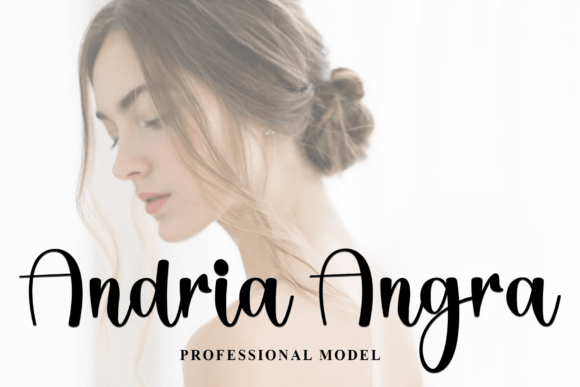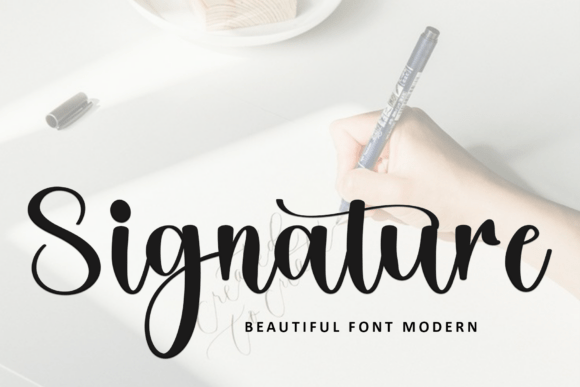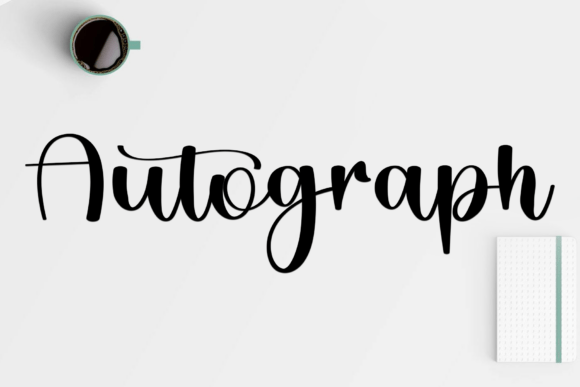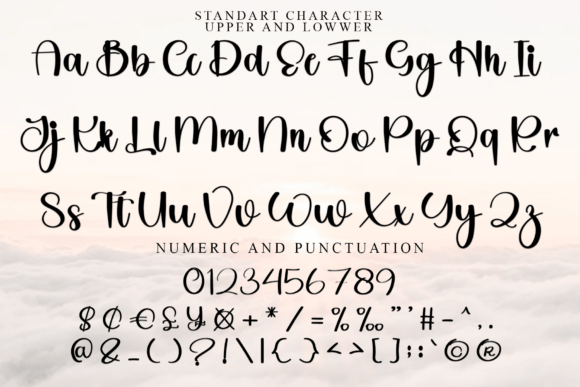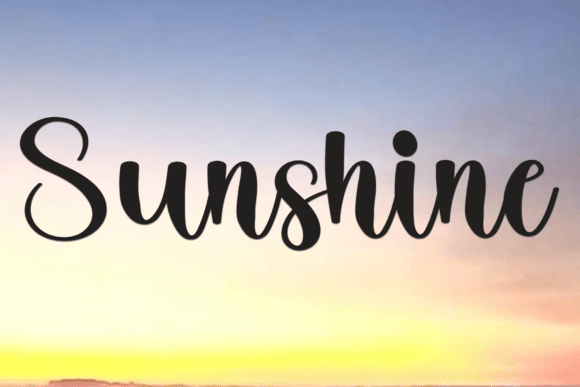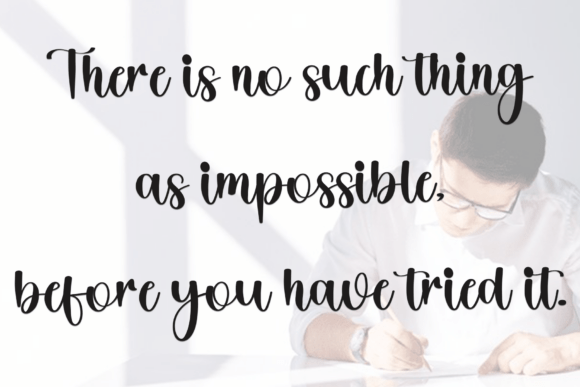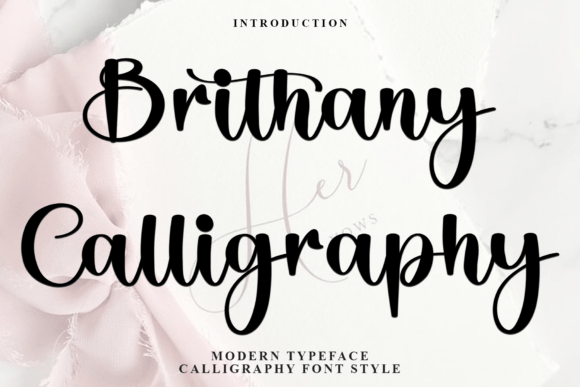
Introducing Brithany Calligraphy Font: A Festive and Merry Typeface for the Holiday Season
Are you looking for a font that captures the essence of the holiday season? Do you want to add a touch of magic to your designs and make them stand out? Look no further than Brithany Calligraphy Font, a beautiful and festive typeface that is perfect for greeting cards, gift tags, and holiday-themed projects.
Brithany Calligraphy Font is a decorative typeface that embodies the spirit of the holiday season. Its whimsical flair and enchanting elements make it the perfect choice for designers and crafters who want to add a touch of nostalgia and cheer to their work. Whether you’re creating holiday cards, gift tags, or festive posters, this font is sure to bring a smile to your audience’s faces.
Brithany Calligraphy Font is specifically designed for holiday-themed projects. Its festive and merry design makes it perfect for:
- Greeting cards: Create beautiful and unique holiday cards that will stand out from the crowd.
- Gift tags: Add a personal touch to your gifts with custom gift tags that feature the Brithany Calligraphy Font.
- Holiday posters: Create eye-catching posters that will grab the attention of your audience and fill them with holiday cheer.
- Social media graphics: Add a touch of festivity to your social media graphics and make them more engaging.
Brithany Calligraphy Font is PUA encoded, which means that you can access all of the amazing glyphs and ligatures with ease. This makes it easy to use the font in your designs and ensures that you can take full advantage of its features.
Brithany Calligraphy Font offers a range of features and benefits that make it the perfect choice for designers and crafters. Some of the key features include:
- Decorative elements: The font features decorative elements that add a touch of whimsy and enchantment to your designs.
- Whimsical flair: The font’s whimsical flair makes it perfect for holiday-themed projects and adds a touch of nostalgia to your designs.
- PUA encoding: The font is PUA encoded, making it easy to access all of the amazing glyphs and ligatures.
Why Choose Brithany Calligraphy Font?
There are many reasons why you should choose Brithany Calligraphy Font for your holiday projects. Here are just a few:
- Unique design: The font features a unique design that will make your projects stand out from the crowd.
- Festive and merry: The font is perfect for holiday-themed projects and adds a touch of festivity and cheer to your designs.
- PUA encoded: The font is PUA encoded, making it easy to access all of the amazing glyphs and ligatures.